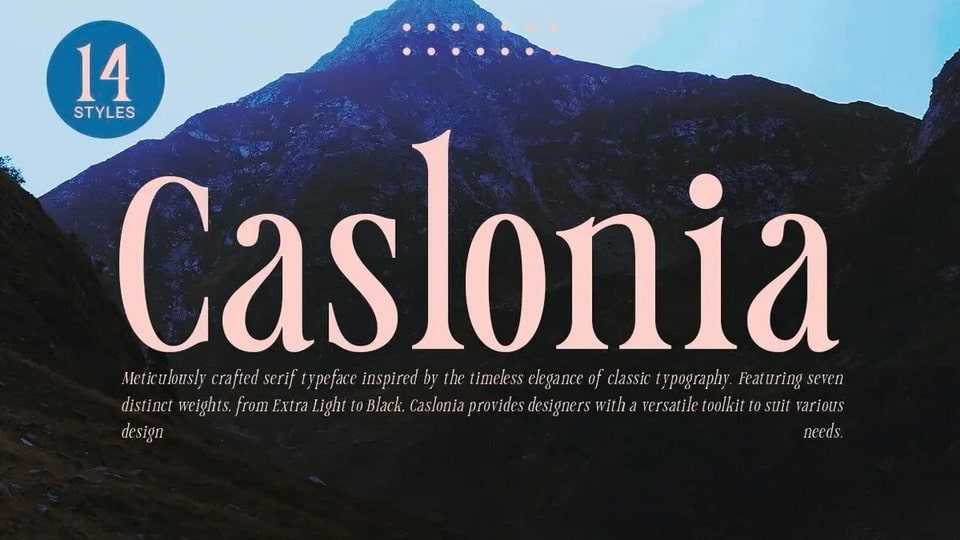
Download Caslonia font, a meticulously crafted serif typeface inspired by the timeless elegance of classic typography, designed with a touch of modern sophistication.